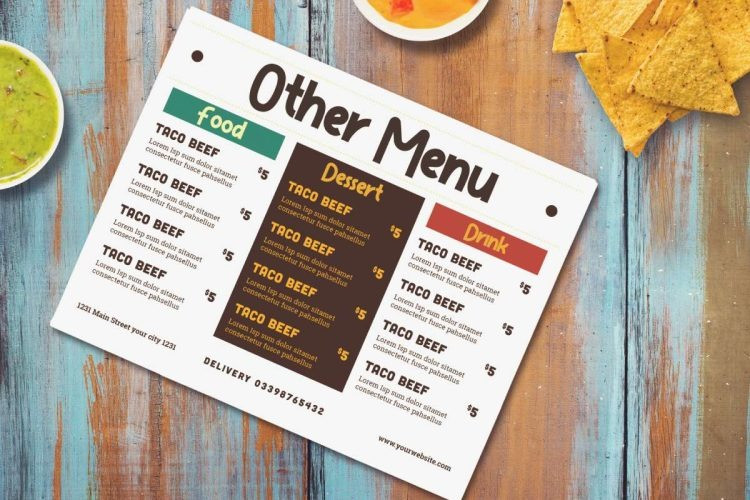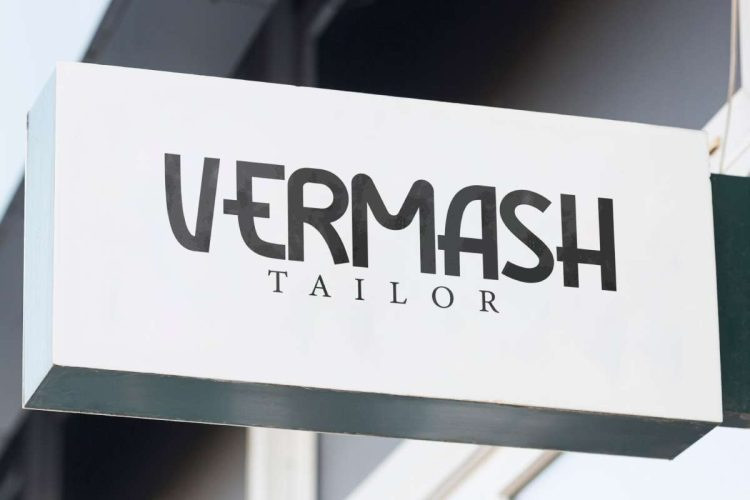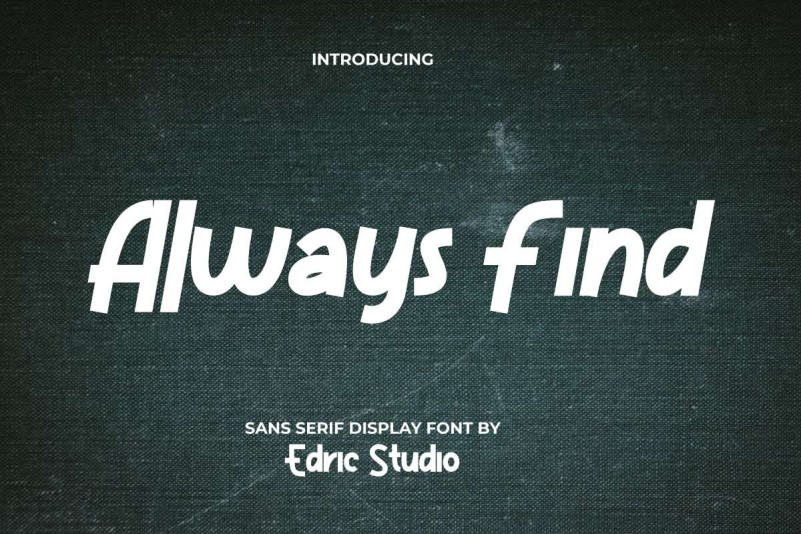
Always Find Font
Always Find Display Font is a playful display font with unusual fun look designed by EdricStudio. The font comes with two styles: Regular and Italic. It has a bold on every character and unique styles that will be awesome for comic, brands, café, clothing brand, fast food restaurant, handicraft, printing, publishing, school, tailor, toy store, and many more.
Always Find Font comes with a full set of Uppercase and Lowercase Basic Characters, Number, a large range of Punctuation and Symbol. It has a stunning characters set, perfectly managed with well spaced and kerning. Always Find Font will be able to complement for any project (with extended license) including: brand logo, brochure, headline, poster, product packaging, screen print, signage, stationary, etc.